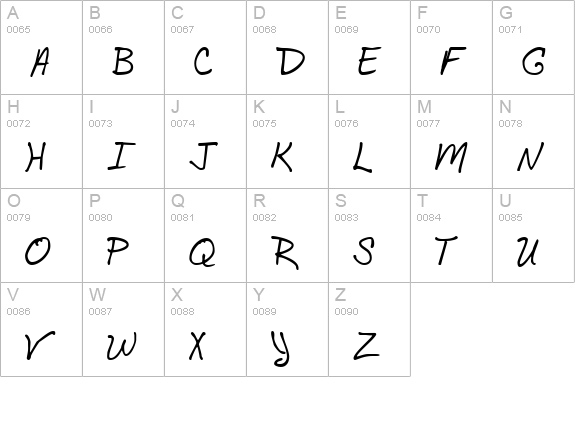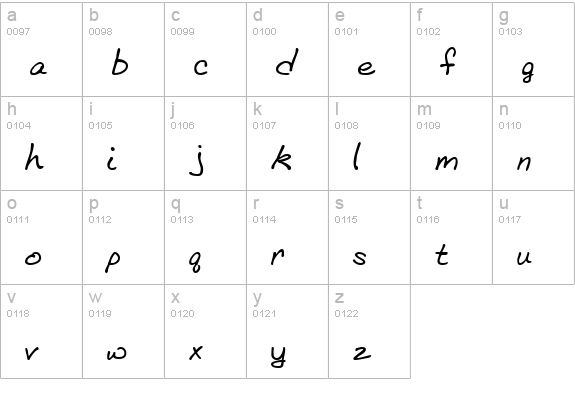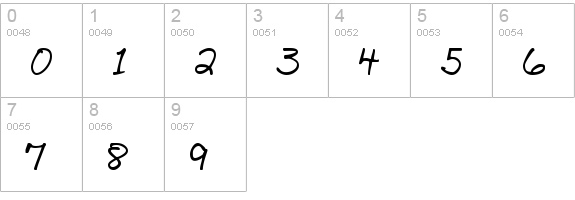
BethHand Font Details
Introducing BethHand font, a charming and elegant script typeface that adds a touch of sophistication to any design project. With its flowing curves and delicate strokes, BethHand exudes a sense of elegance and refinement. Perfect for invitations, wedding stationery, branding, and more, this versatile font will elevate your designs to new heights. What's even better is that BethHand is completely free to download at FontsMarket.com! So go ahead and add this beautiful font to your collection today and bring a touch of class to your next project.